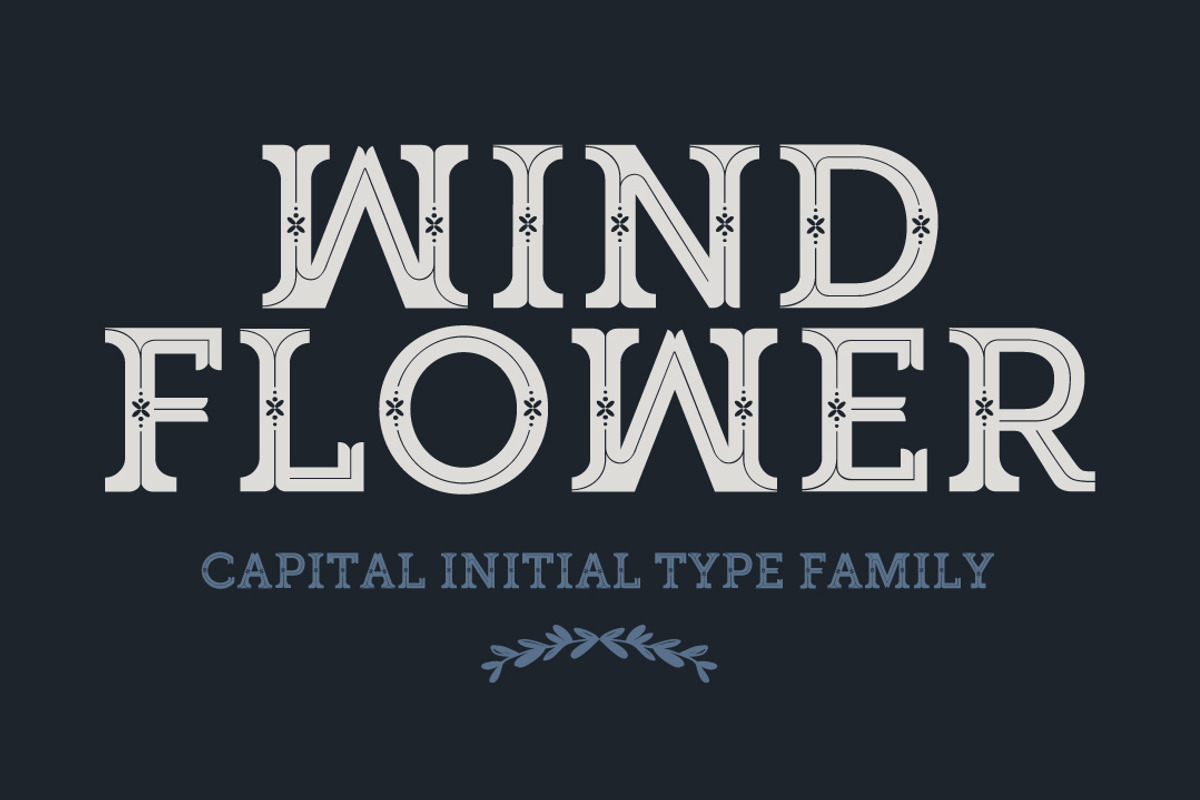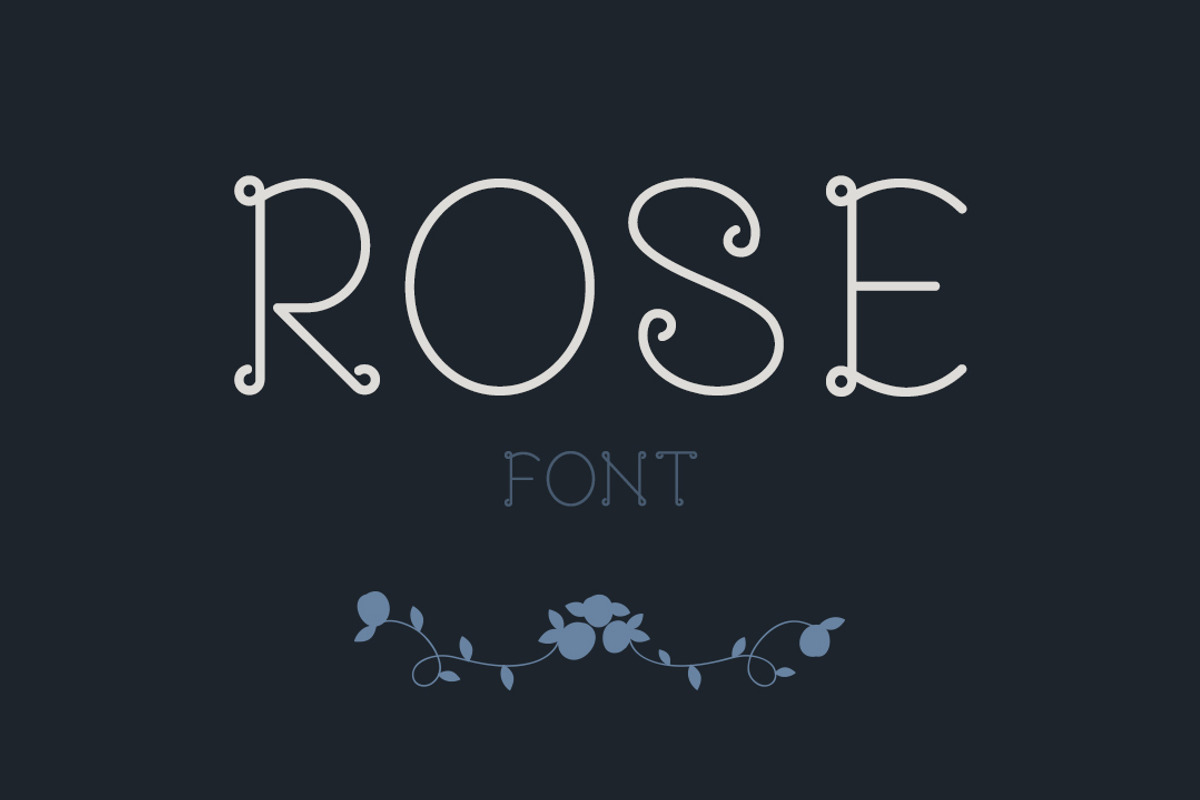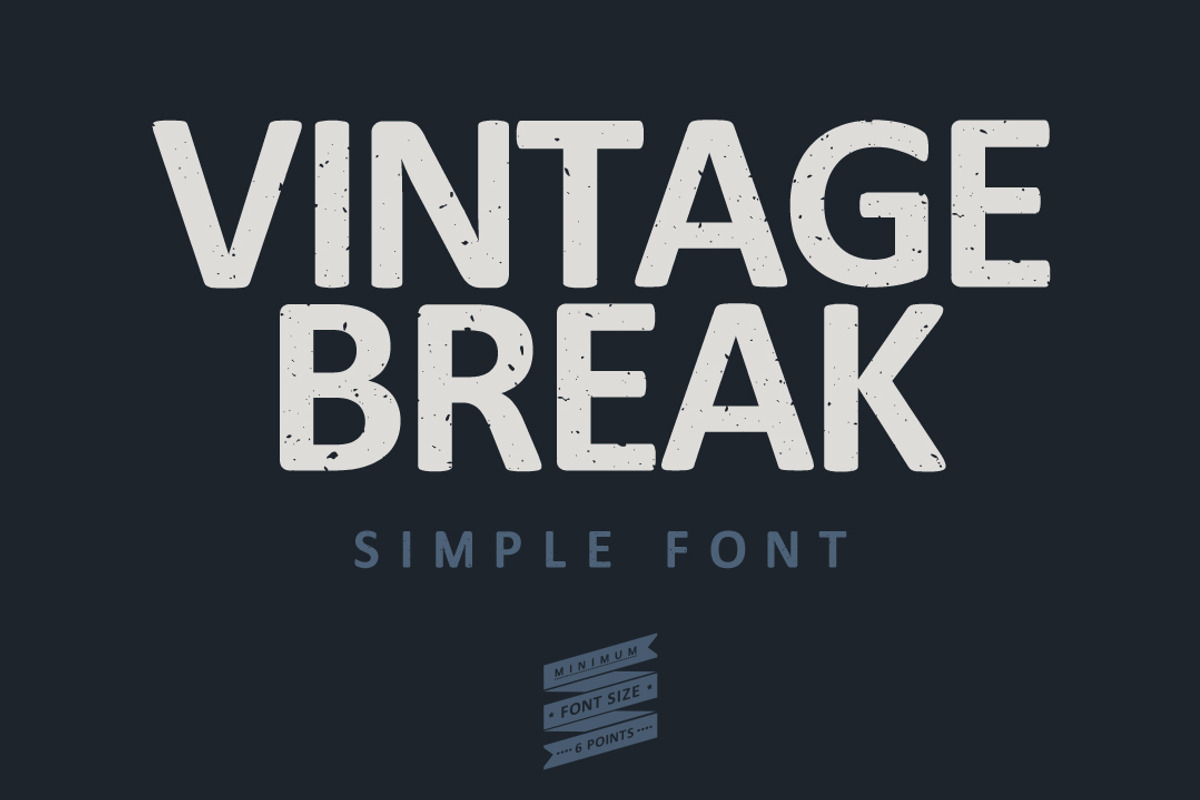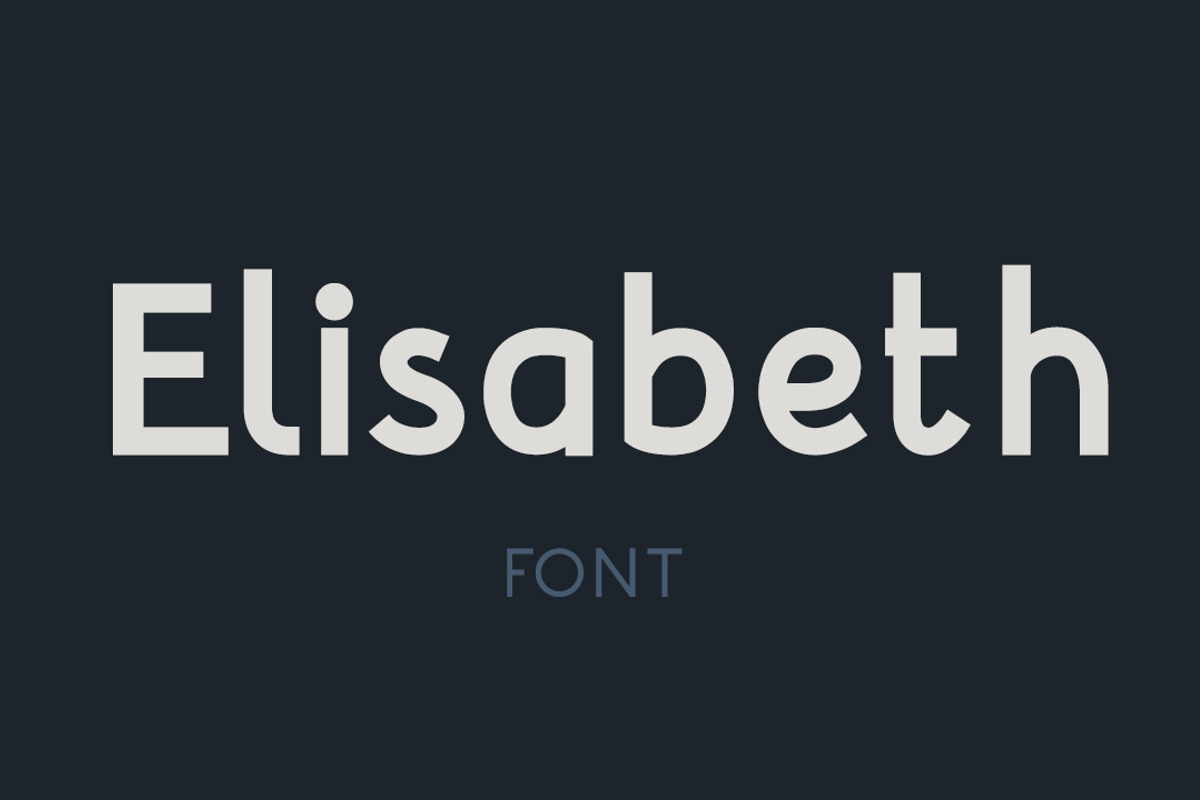
Pack - 4 Premium Fonts
Pack - 4 Premium Fonts by kadusupanik is a font selected for branding, posters, packaging, typography.
- 2 - Elisabeth - Font Elisabeth is an free uppercase e lowercase display typeface inspired by the classic sans serif font family's.
- 4 - WindFlower - Font WindFlower is an capital initial uppercase display typeface inspired by the classic and vintage serif font family's.
Pack - 4 Premium Fonts by kadusupanik fits naturally into Branding, posters, packaging, typography.